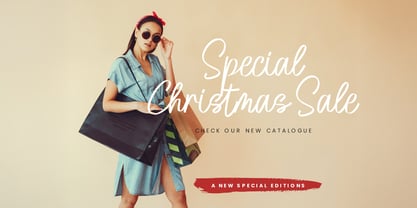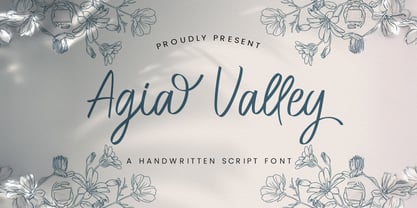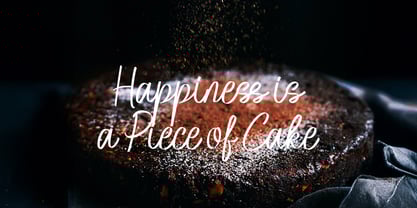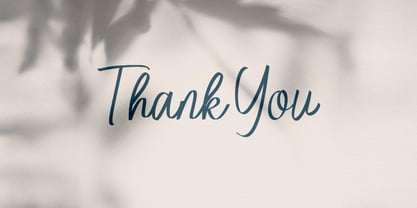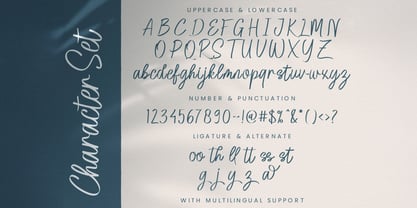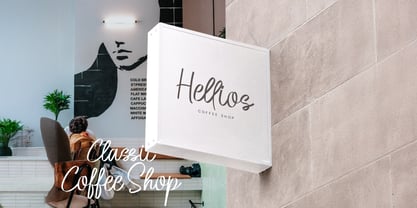
The Agia Valley Font Family was designed by Virgiawan Listanto and published by Stringlabs Creative Studio. Agia Valley contains 1 styles. More about this family
Agia Valley is a beautifully crafted handwritten font that exudes charm and personality. Featuring natural, flowing strokes and a unique, personal touch, this font is perfect for adding warmth and character to any design.
Agia Valley